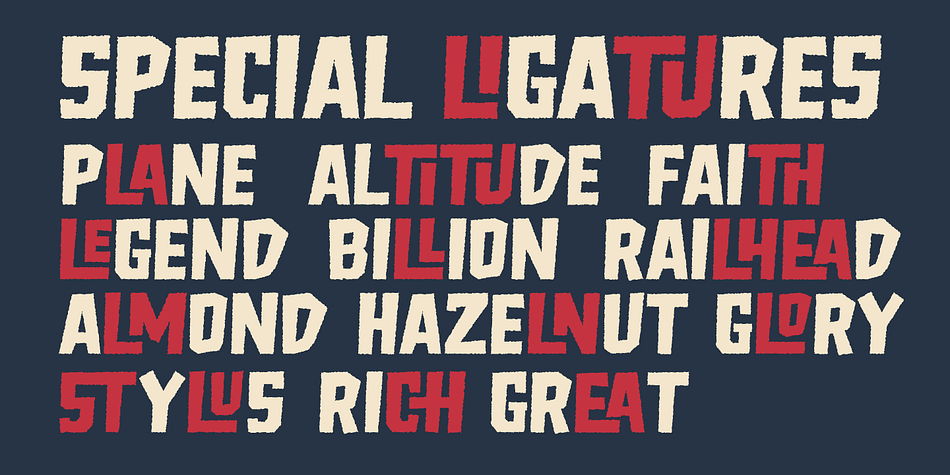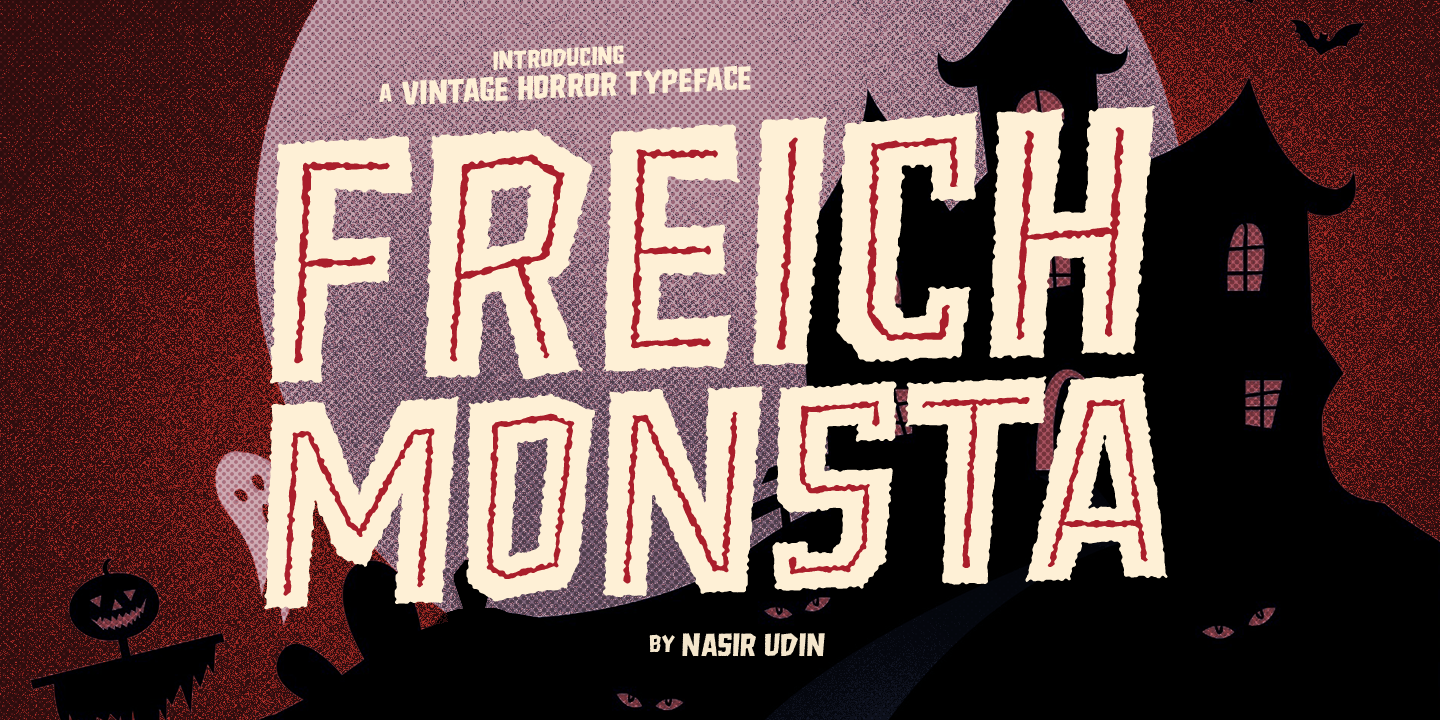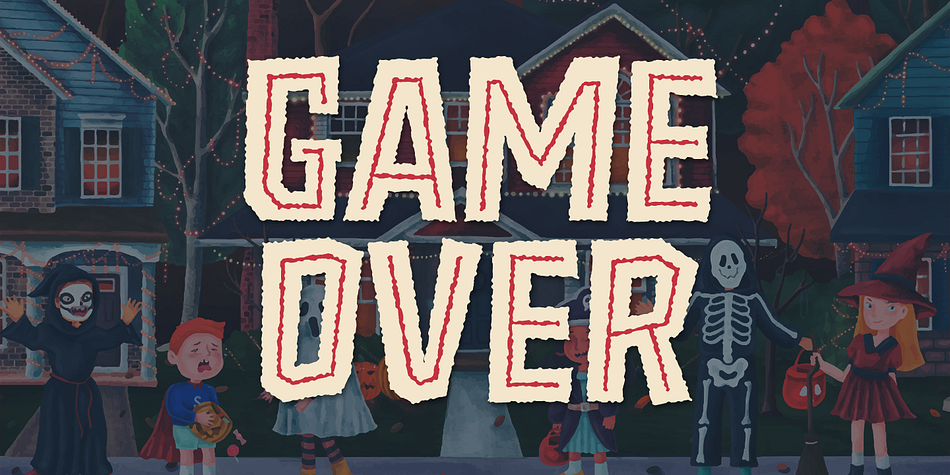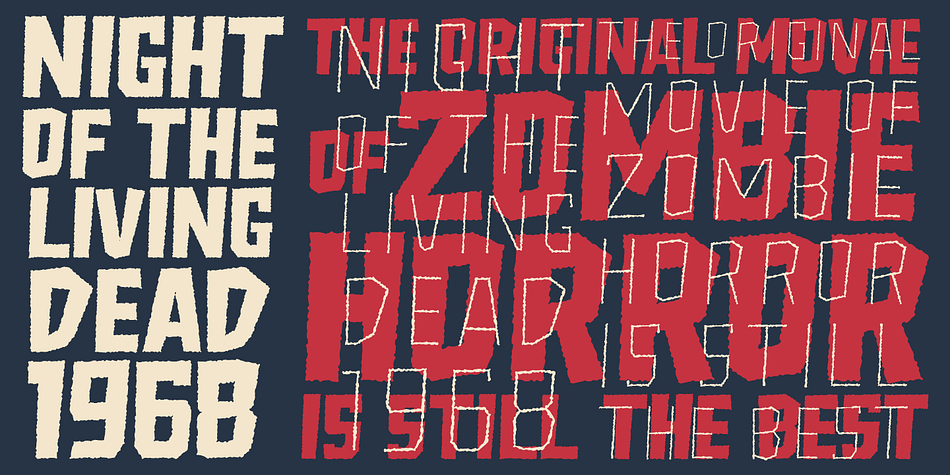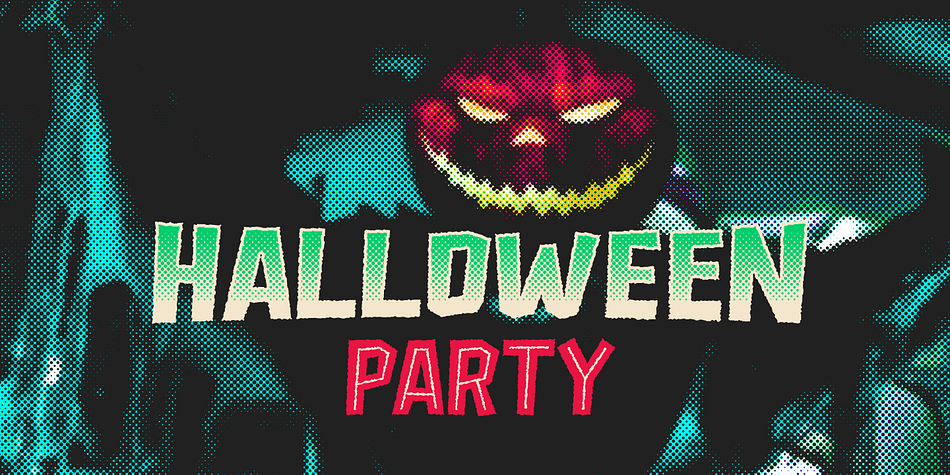
Designed by Nasir Udin, Freich Monsta is a comic and hand display font family. This typeface has three styles and was published by Nasir Udin.
Trick or treat! The spookiest time of the year will be here soon!
Spread the Halloween spirit with this chilling, creepy, and scary typeface, Freich Monsta!
Freich Monsta is an evolution of my previous font - Freich. It’s mutated from a clean, strong, and bold font to a spooky display font with a vintage horror twist.